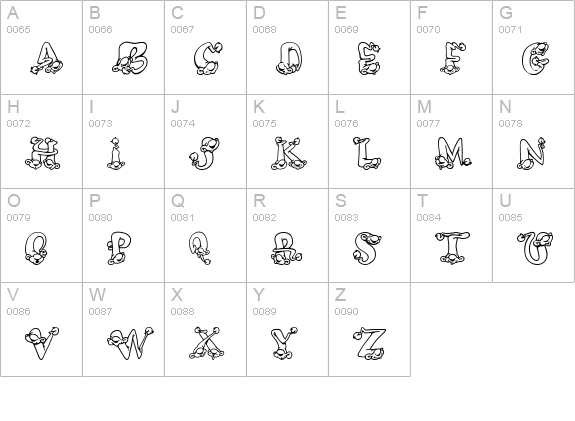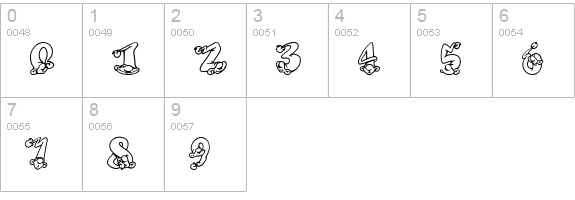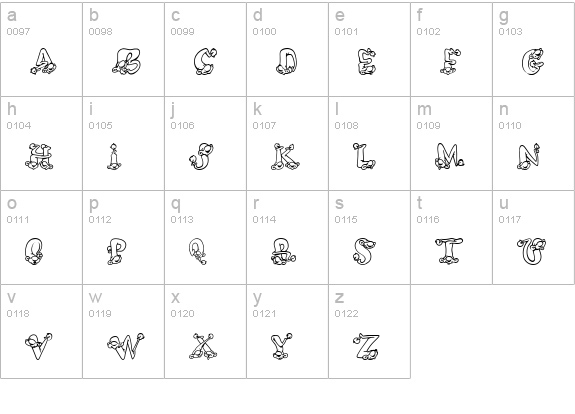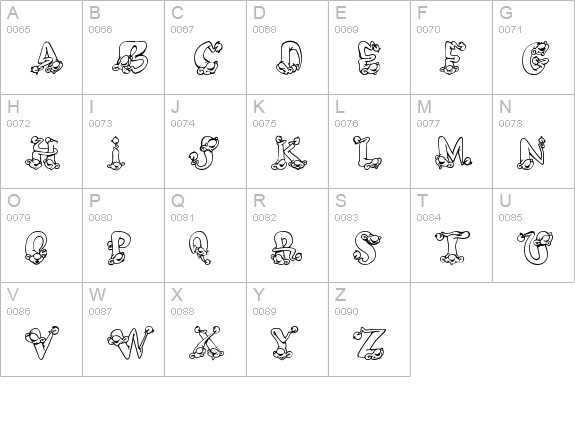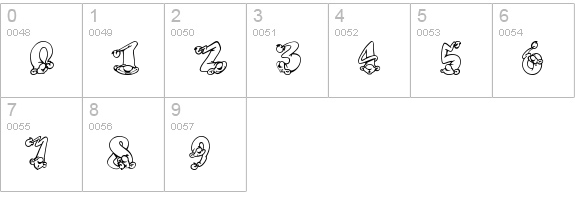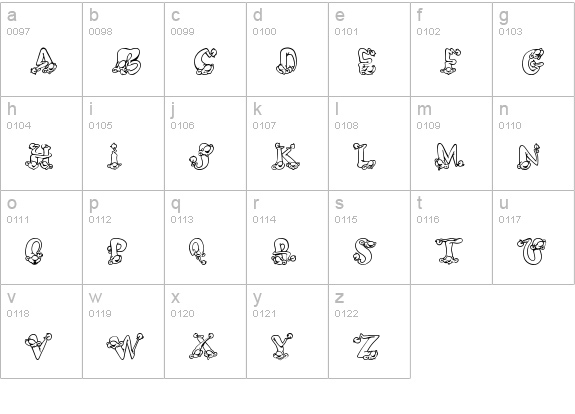
AlphaElfin Font Details
Introducing AlphaElfin, a whimsical and charming font that adds a touch of magic to any project. This delightful font features playful curves and elegant flourishes, making it perfect for a wide range of design applications. Whether you're creating invitations, greeting cards, or branding materials, AlphaElfin will surely capture attention and leave a lasting impression. What's even better is that AlphaElfin is available for free download at FontsMarket.com. So go ahead and elevate your designs with this enchanting font without breaking the bank. Don't miss out on the opportunity to add a sprinkle of fairy dust to your creations with AlphaElfin - download it today and let your imagination soar!